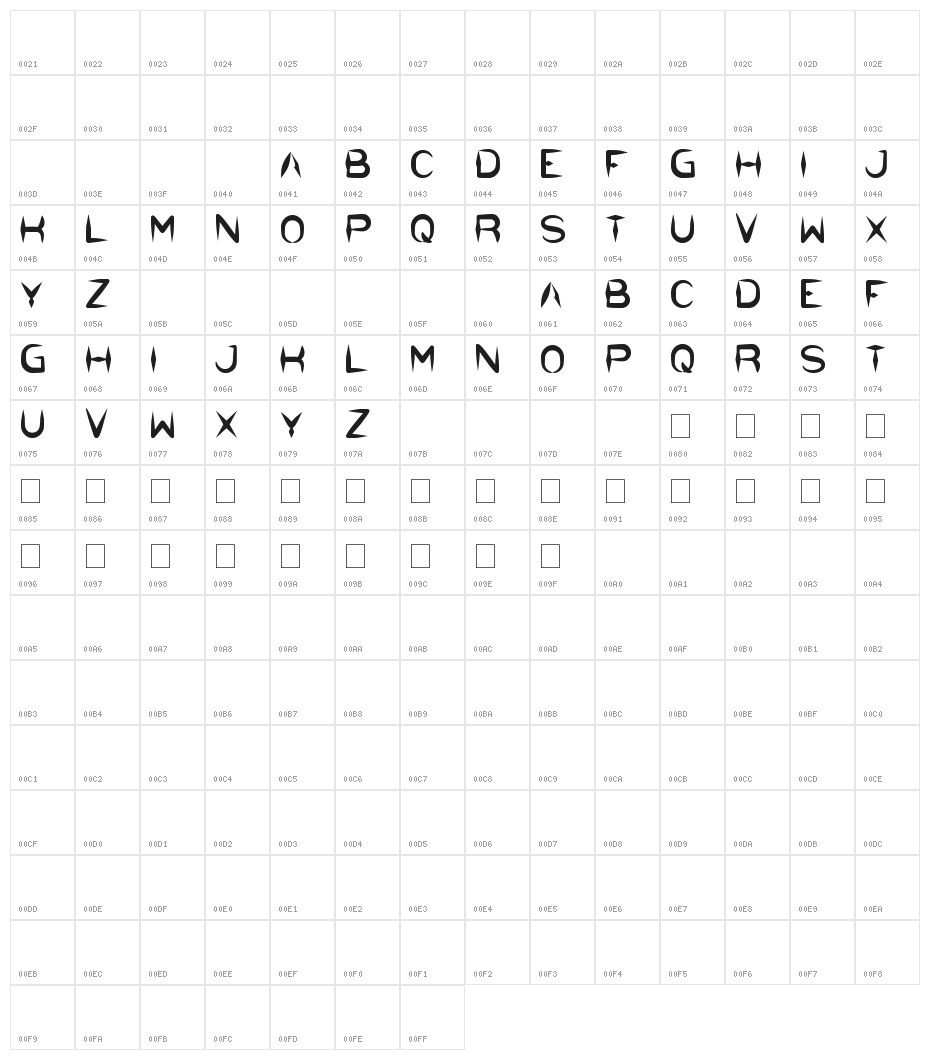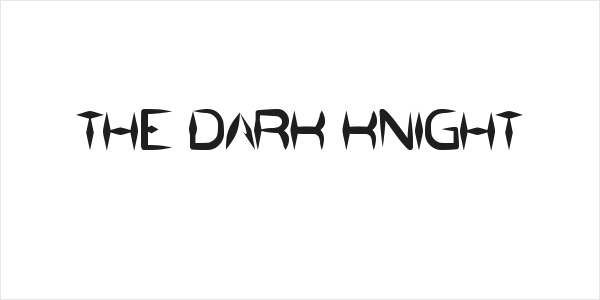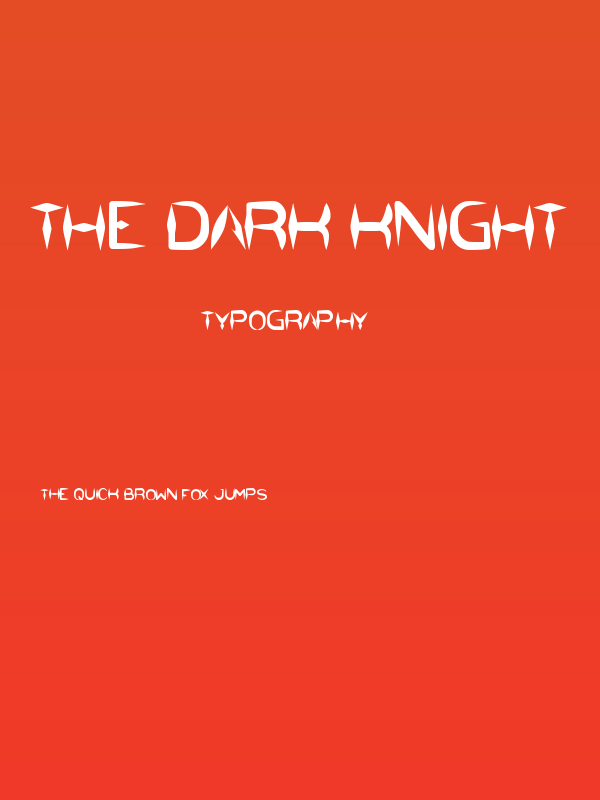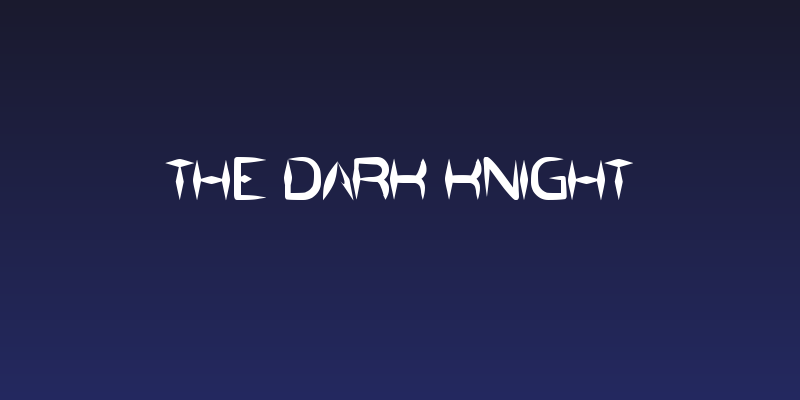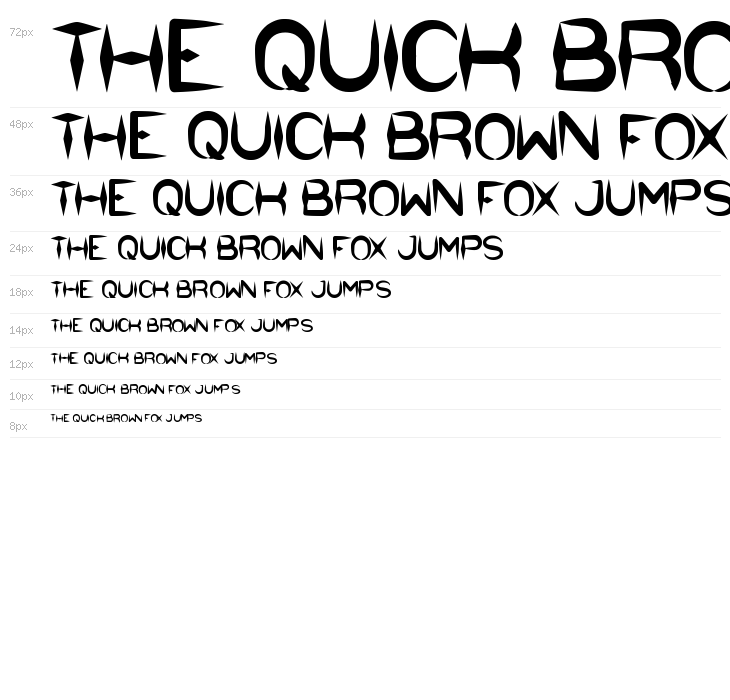
the dark knight Font
the dark knight Description
This font features a bold and striking design with sharp, angular edges that evoke a sense of mystery and intensity. The characters are crafted with a unique style that combines elements of modern and gothic design, making it ideal for projects that require a dramatic and impactful visual presence. The uppercase letters are particularly distinctive, with pointed serifs and a slightly condensed form that enhances their boldness. The overall aesthetic is both edgy and sophisticated, suitable for a variety of creative applications.
Overall StyleModern Gothic
Proposed ProjectsIdeal for movie posters, video game titles, branding for edgy products, and any project requiring a strong visual impact.